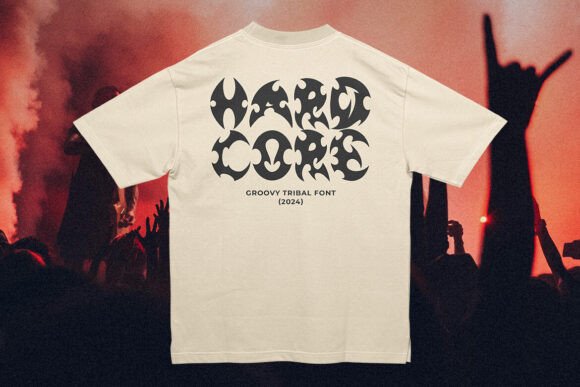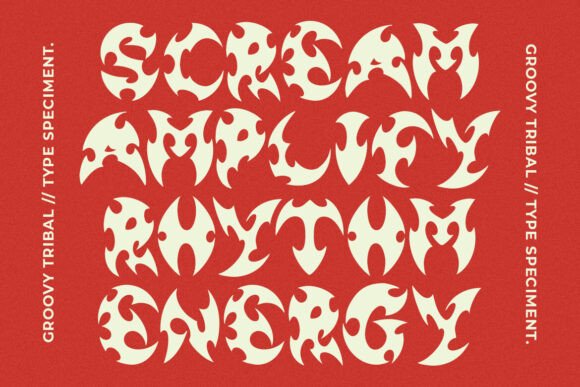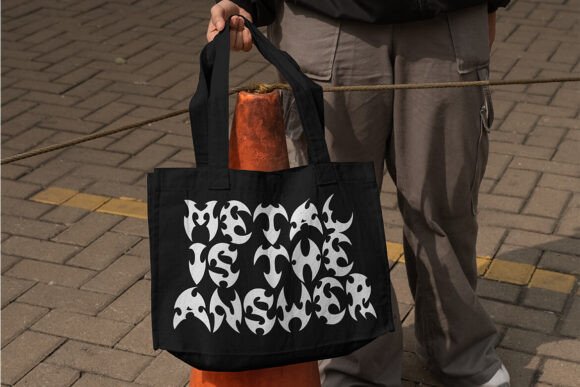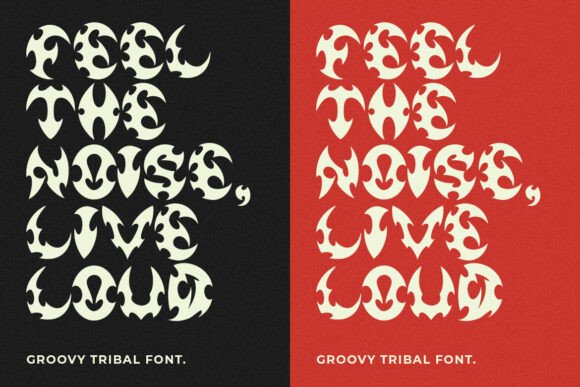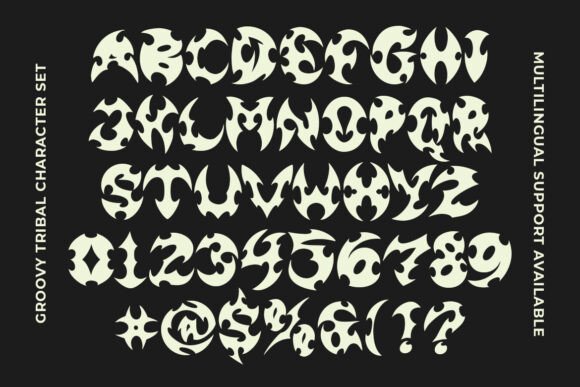
Unleash Your Creativity with Groovy Tribal Font
Are you looking for a font that can add a bold and daring touch to your designs? Look no further than the Groovy Tribal Font. This brutal display font is perfect for designers and crafters who want to create eye-catching and impactful designs that demand attention.
What is Groovy Tribal Font?
Groovy Tribal Font is a unique and eccentric font that is designed to make a statement. With its spirited and fierce design, this font is perfect for creating bold and inspiring designs. The font features a tribal-inspired aesthetic, with bold lines and sharp edges that give it a rugged and edgy look.
Key Features of Groovy Tribal Font
- Bold and Impactful Design: Groovy Tribal Font is designed to make a statement. Its bold and daring design makes it perfect for creating posters, banners, album covers, and any project that requires a strong visual presence.
- Eccentric and Spirited Design: The font features a unique and eccentric design that is sure to grab attention. Its spirited and fierce aesthetic makes it perfect for designers who want to add a bold touch to their designs.
- Tribal-Inspired Aesthetic: The font features a tribal-inspired aesthetic, with bold lines and sharp edges that give it a rugged and edgy look.
- Versatile and Easy to Use: Groovy Tribal Font is easy to use and can be applied to a wide range of design projects, from posters and banners to album covers and more.
Uses of Groovy Tribal Font
Groovy Tribal Font is a versatile font that can be used for a wide range of design projects. Here are some of the most popular uses of this font:
- Posters and Banners: The font’s bold and impactful design makes it perfect for creating eye-catching posters and banners.
- Album Covers: The font’s tribal-inspired aesthetic makes it perfect for creating bold and edgy album covers.
- Logos and Branding: The font’s unique and eccentric design makes it perfect for creating bold and memorable logos and branding materials.
- Social Media Graphics: The font’s bold and daring design makes it perfect for creating eye-catching social media graphics.
Why Choose Groovy Tribal Font?
There are many reasons why designers and crafters choose Groovy Tribal Font for their design projects. Here are some of the top reasons:
- Unique and Eye-Catching Design: The font’s unique and eccentric design makes it stand out from other fonts.
- Bold and Impactful: The font’s bold and impactful design makes it perfect for creating designs that demand attention.
- Easy to Use: The font is easy to use and can be applied to a wide range of design projects.
- High-Quality Design: The font is designed to high-quality standards, ensuring that it looks great in any design project.
Tips for Using Groovy Tribal Font
Here are some tips for using Groovy Tribal Font in your design projects:
- Use it Boldly: The font is designed to be used boldly, so don’t be afraid to experiment with different sizes and styles.
- Pair it with Other Fonts: The font can be paired with other fonts to create a unique and eye-catching design.
- Experiment with Colors: The font looks great in a range of colors, so experiment with different colors to find the one that works best for your design.
Groovy Tribal Font is a bold and daring font that is perfect for designers and crafters who want to add a unique touch to their designs. With its eccentric and spirited design, this font is sure to grab attention and make a statement. Whether you’re creating posters, banners, album covers, or any other design project, Groovy Tribal Font is a great choice.